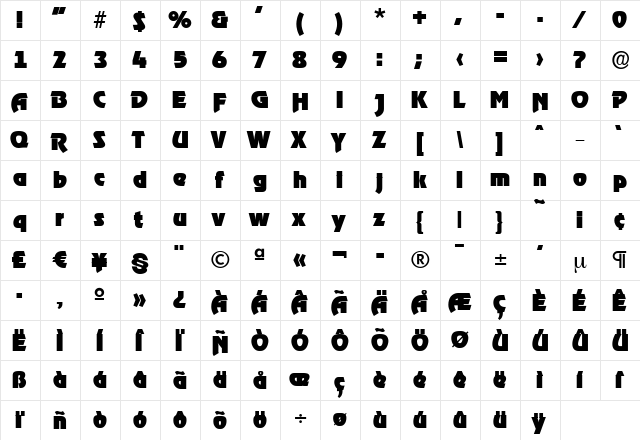
JoeBecker-Black Regular
Design Context for JoeBecker-Black Typeface
JoeBecker-Black is a composed and adaptable typeface that performs quietly and consistently across a wide range of design contexts.